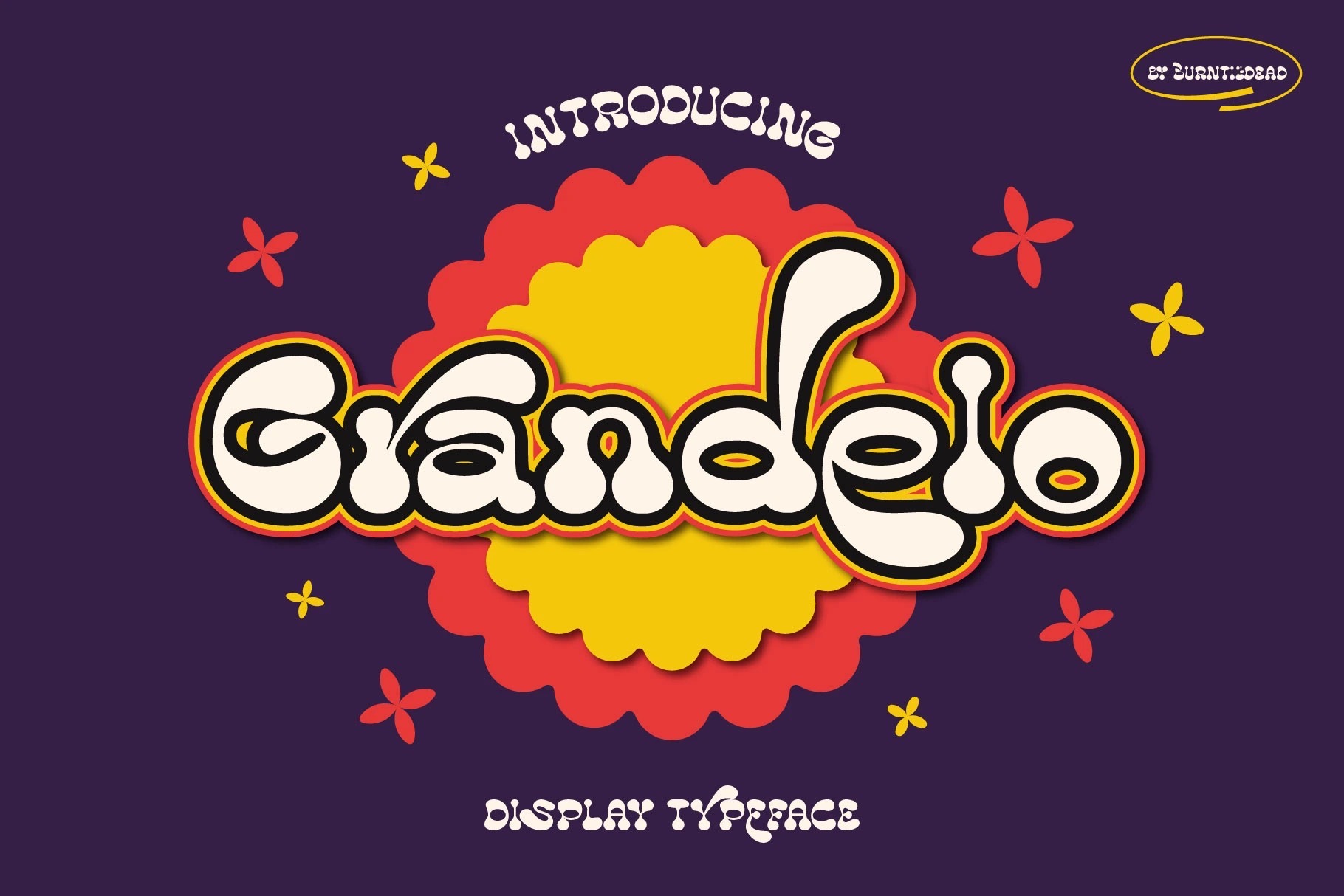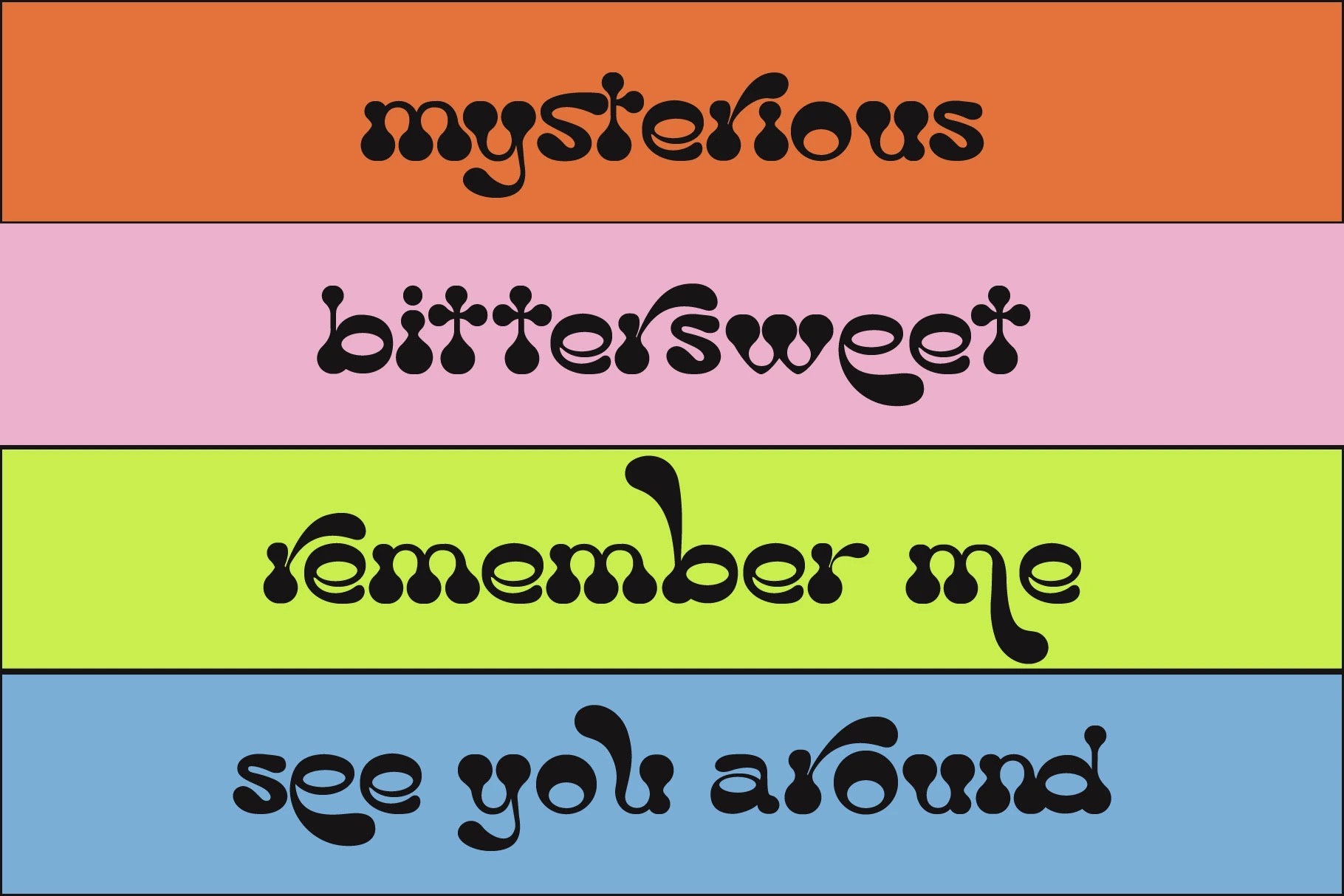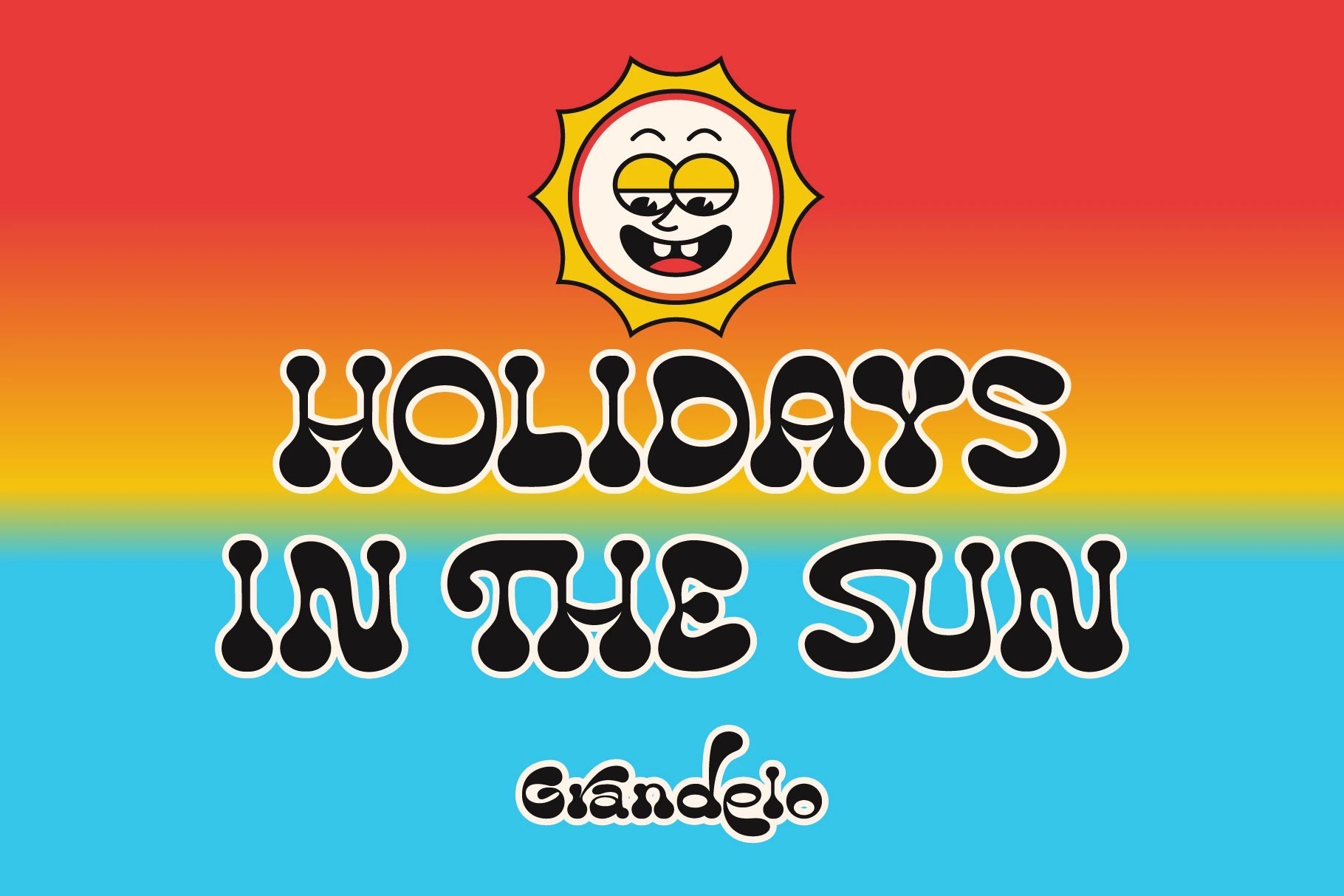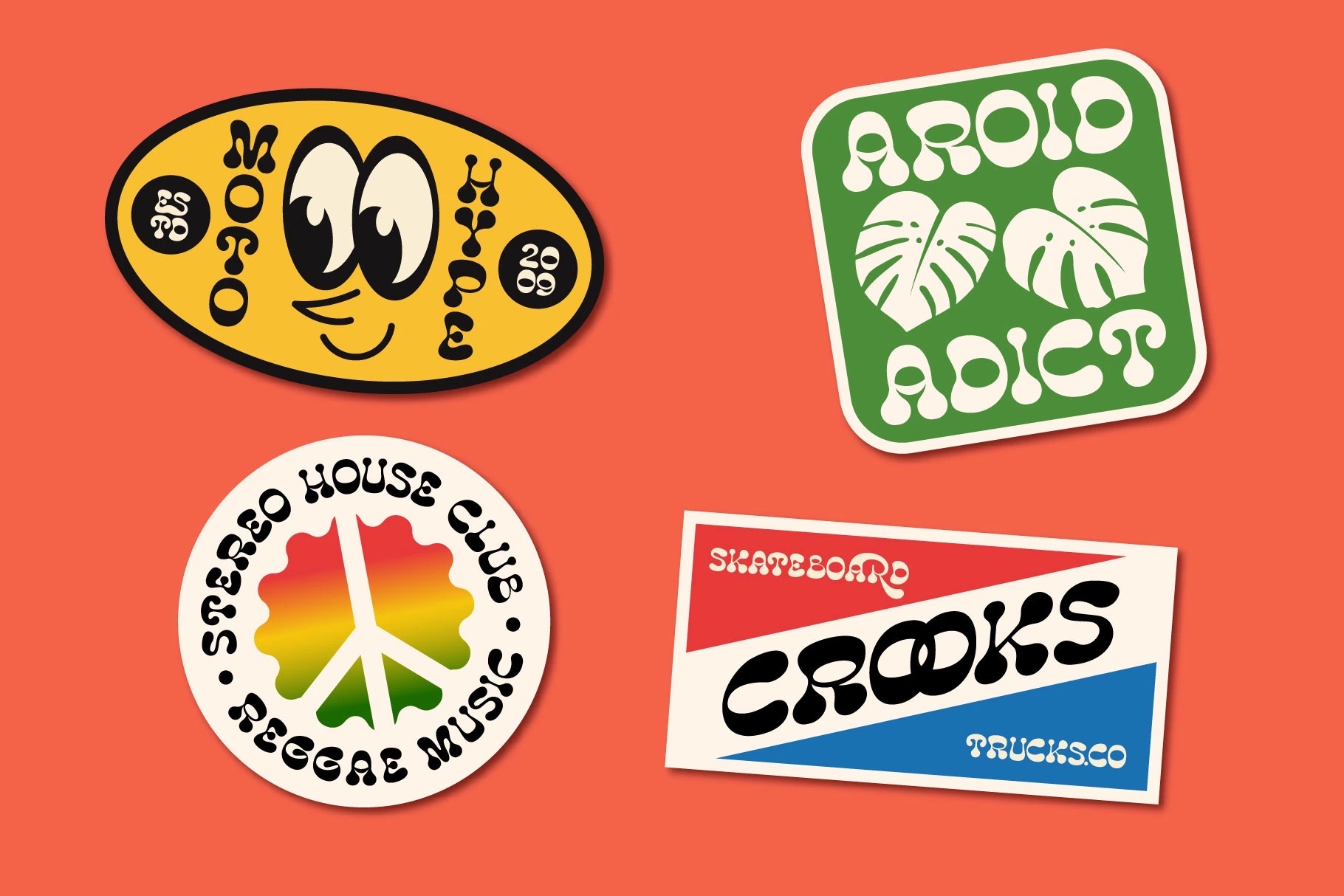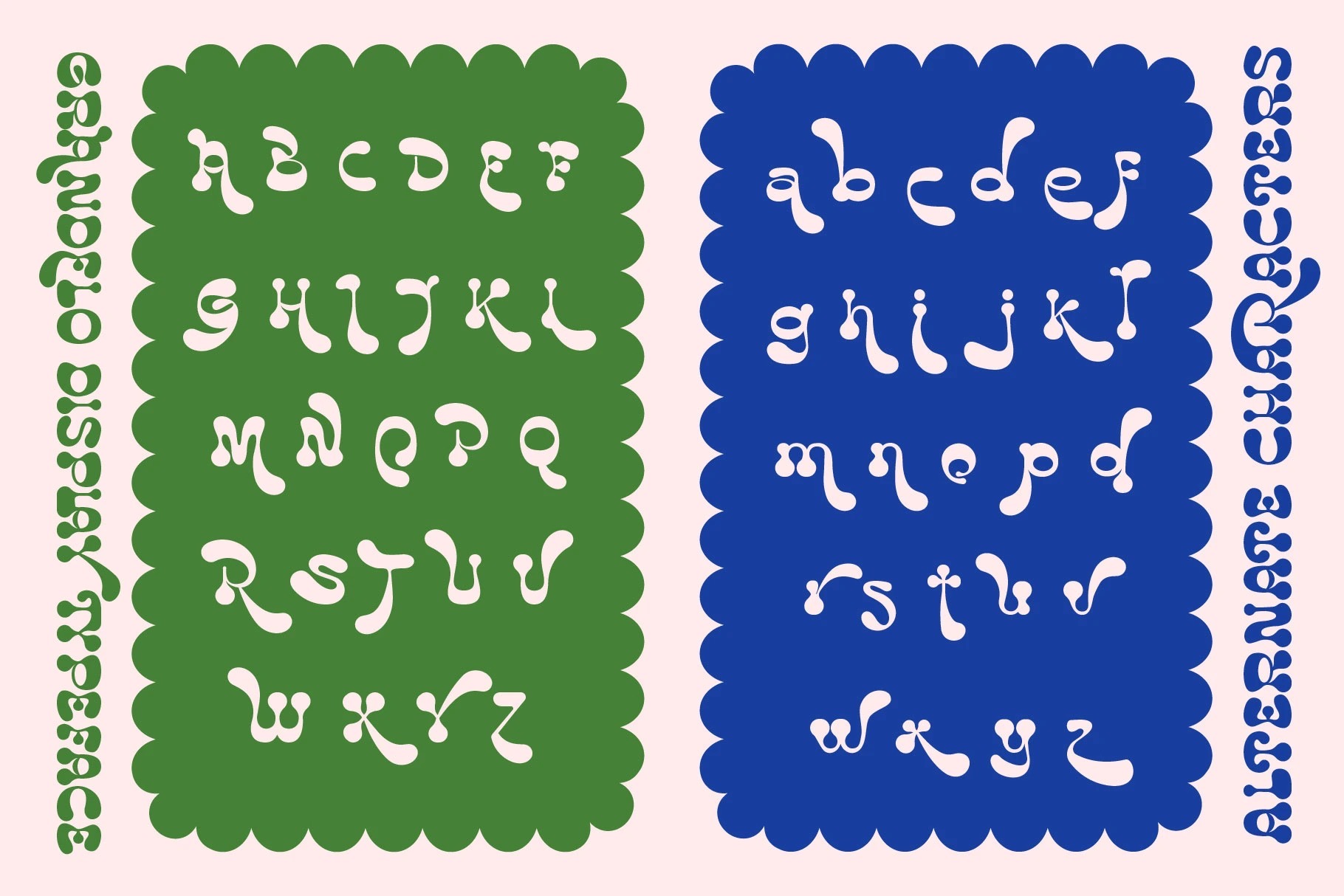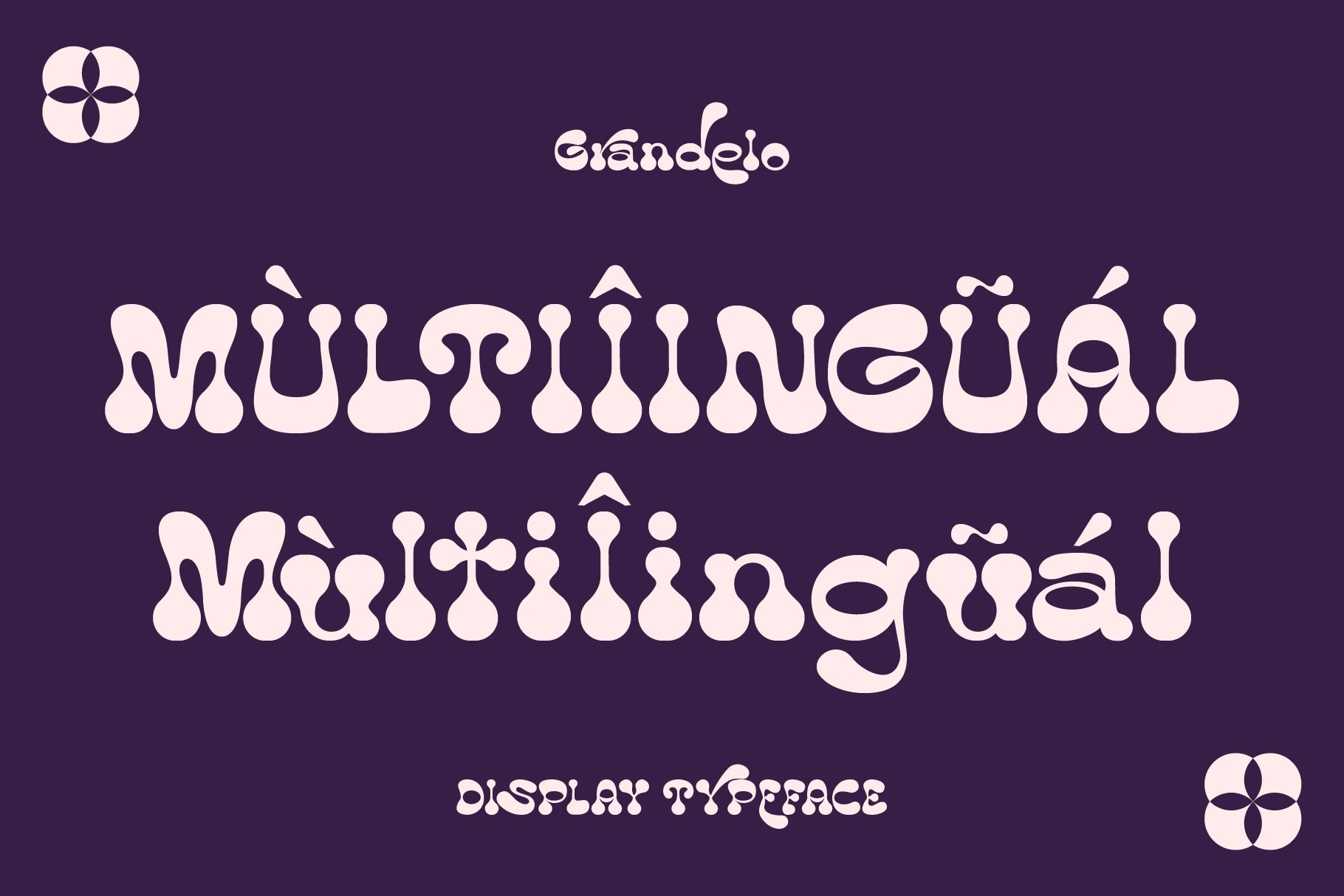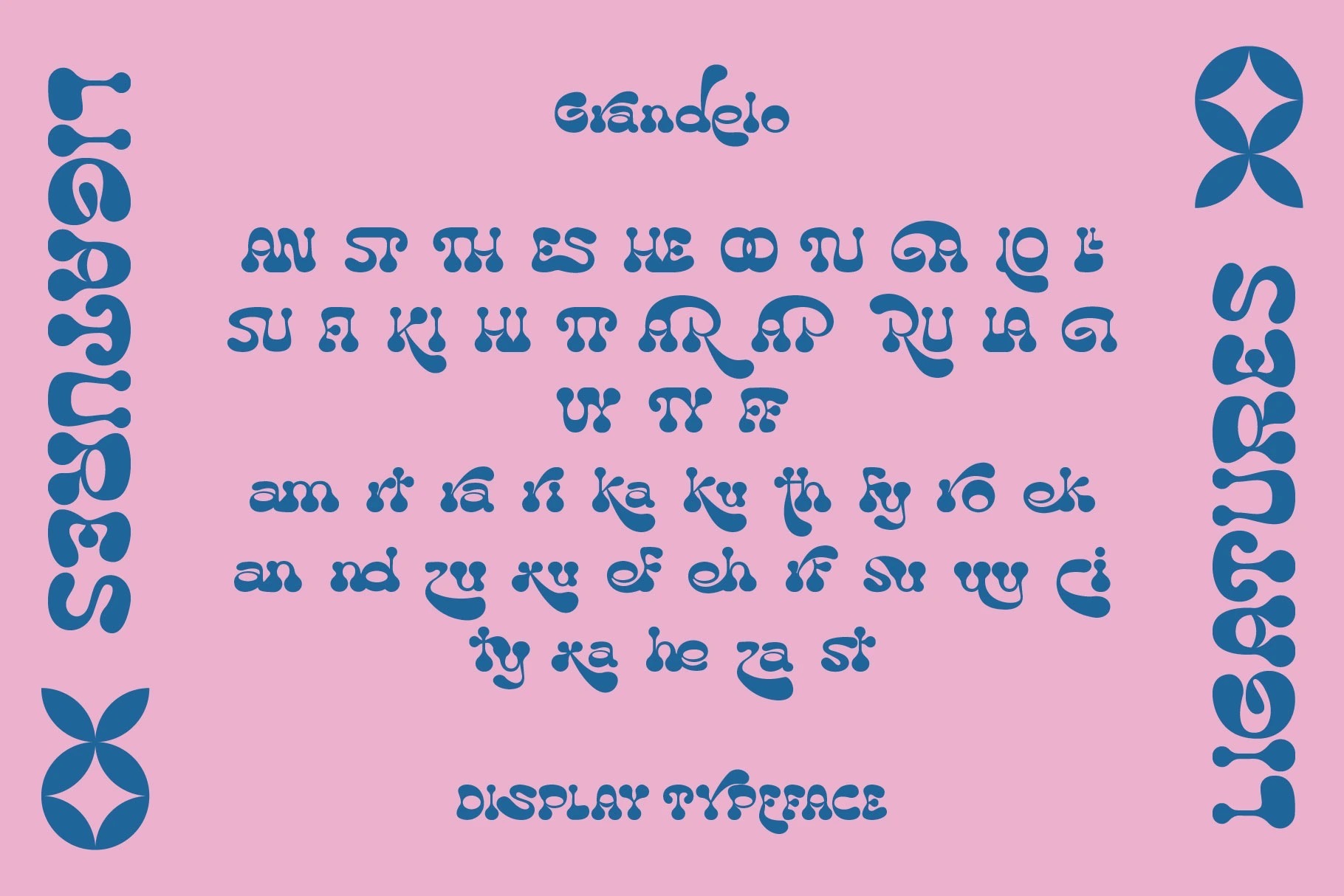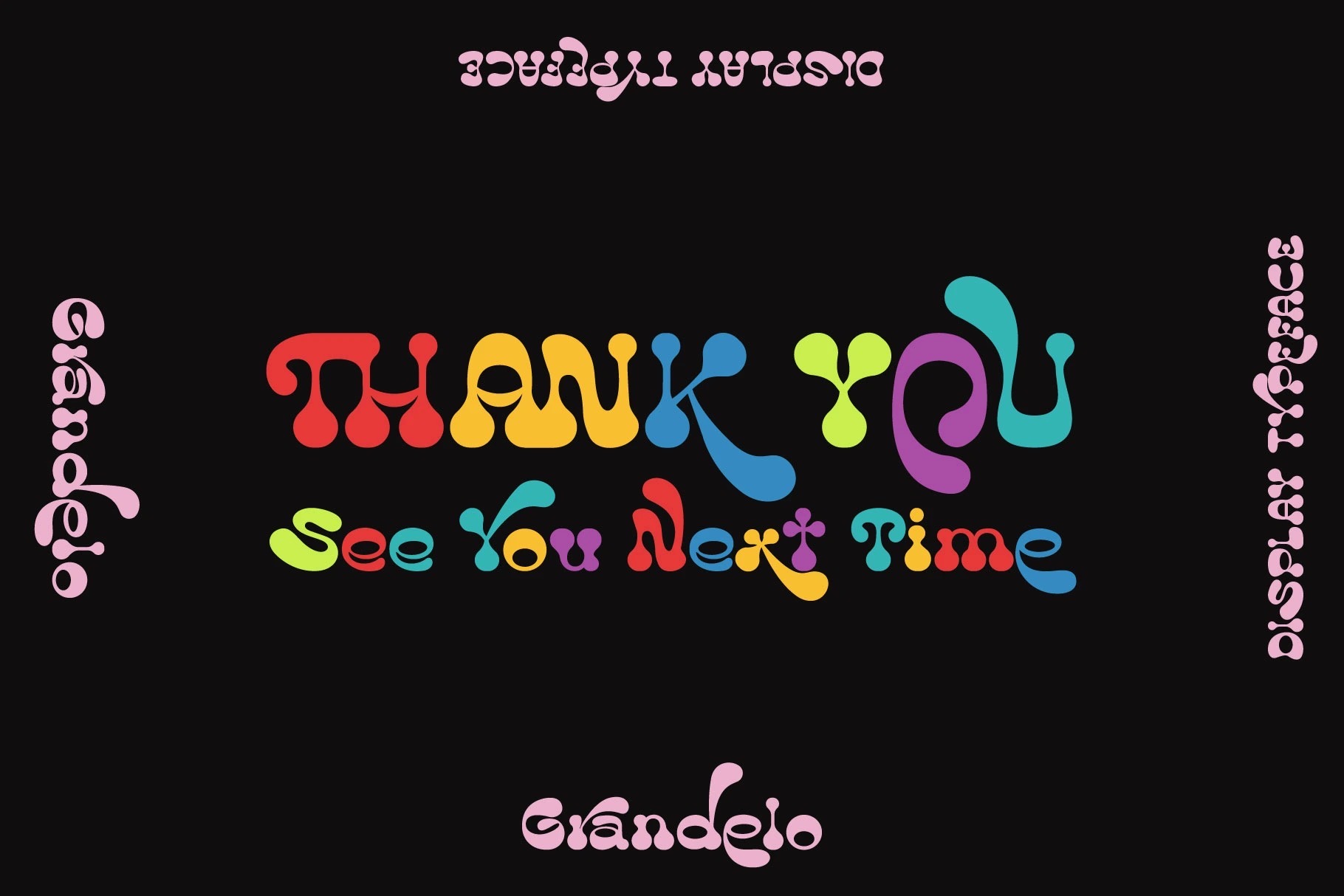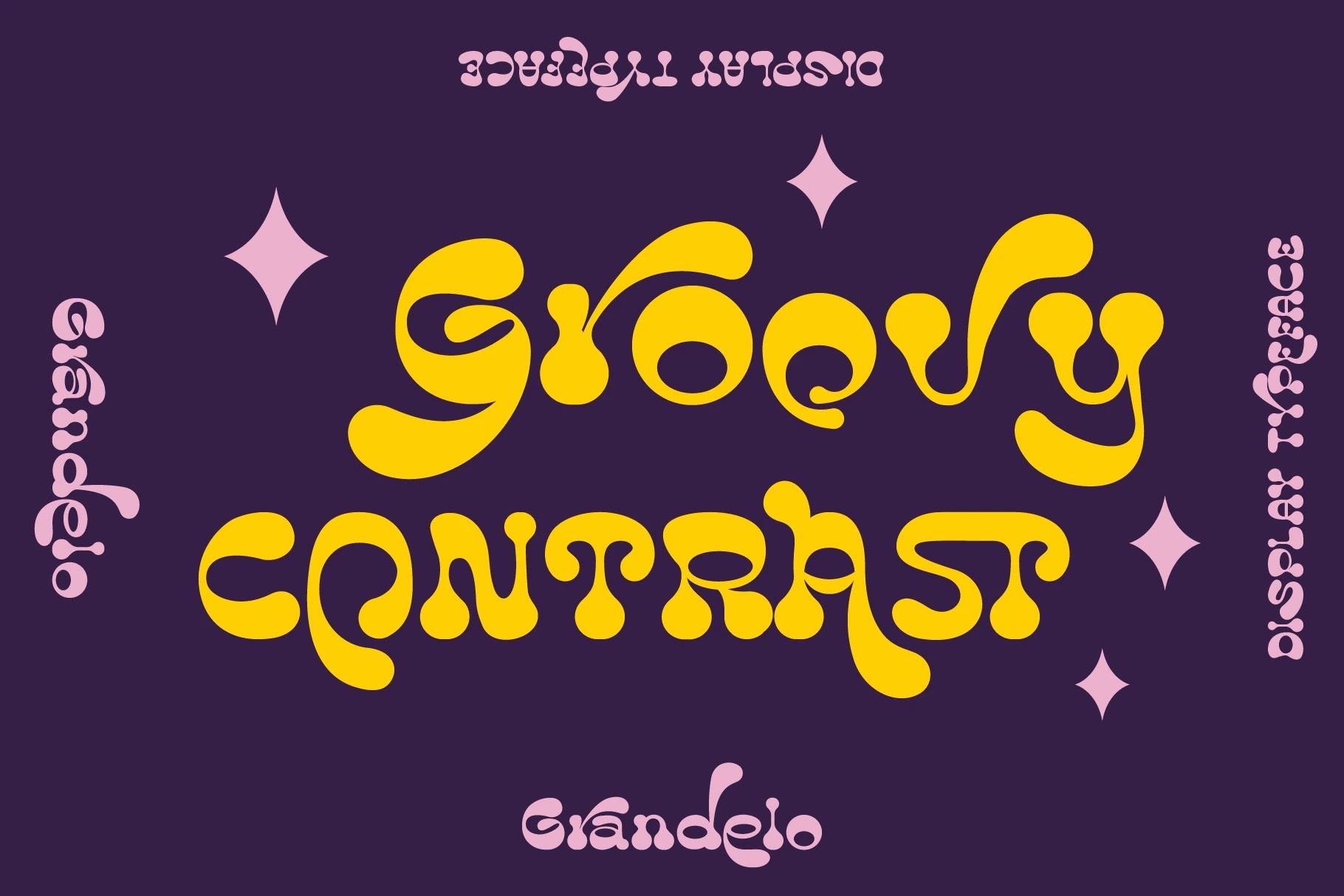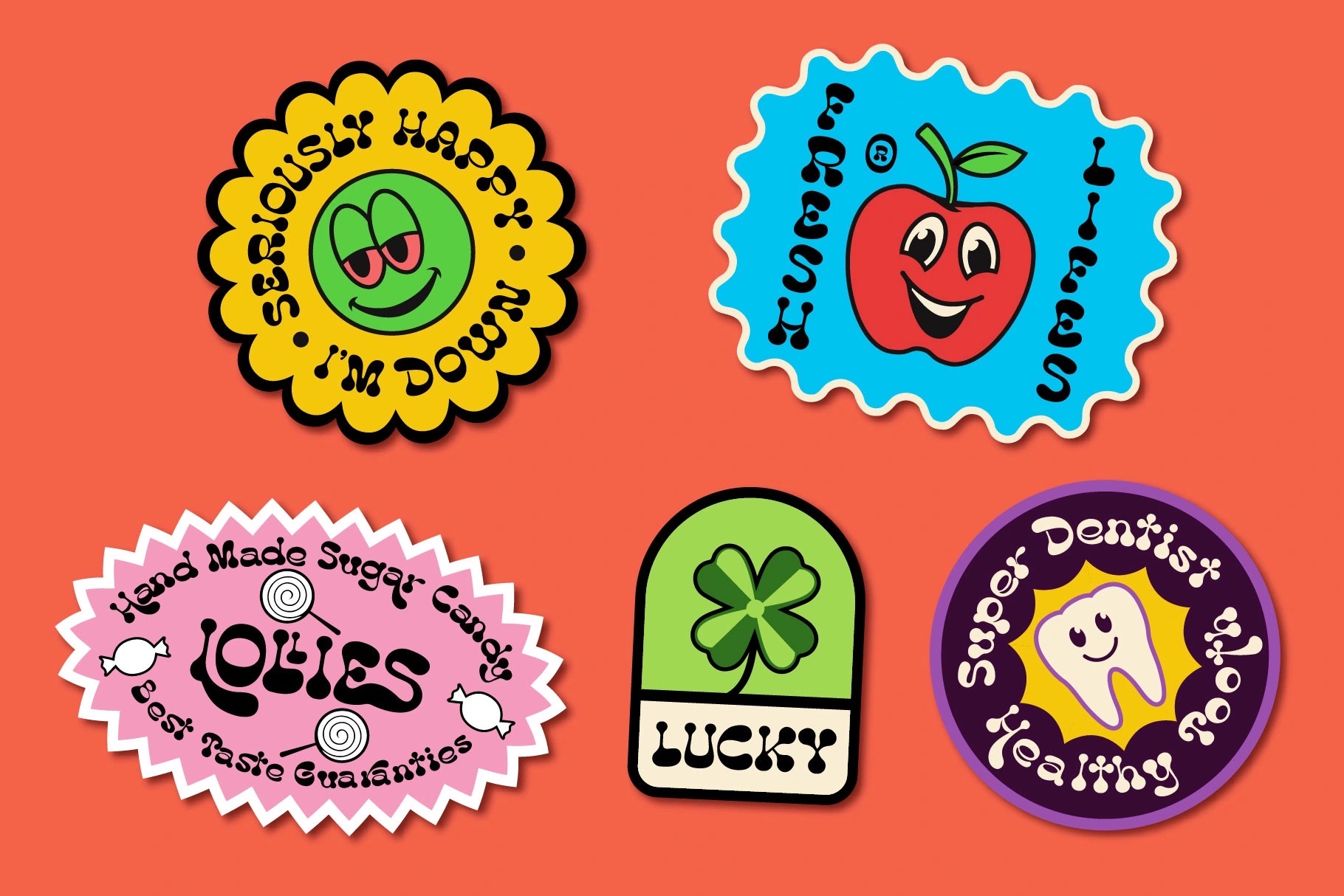
- Grandelo
Hey Ho, Let’s Go…. say hi to “Grandelo” display typeface. Powered with opentype features, alternate characters & ligatures. PUA encoded. This groovy font bring the retro vibes also playful. Brings joy and cheerful in every letters on your design project.
Perfect and suitable for logo, branding, sticker, t-shirt, headline, packaging, etc.